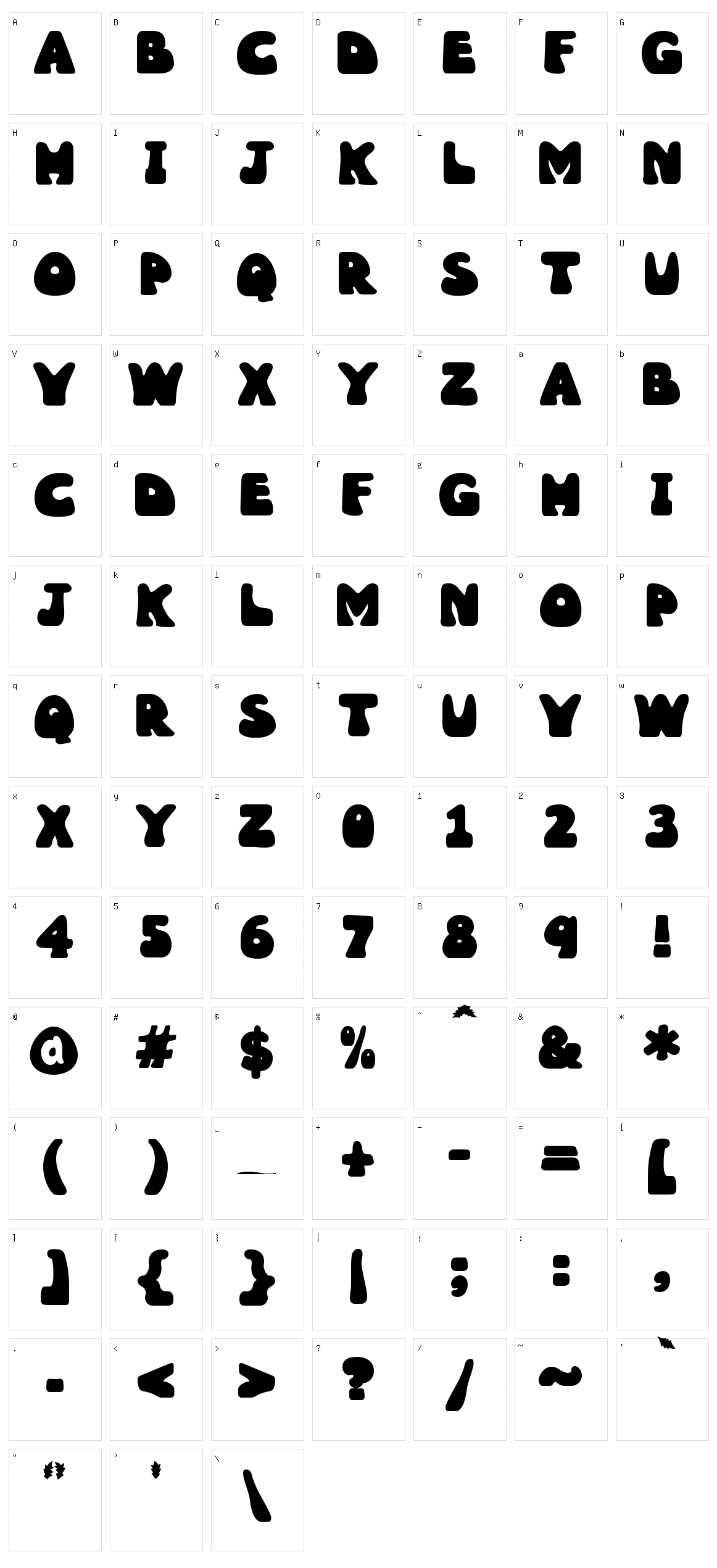
Well, there I was just essing about when up comes me mate Jools and sez, "Hey, I'm in a bit of a Euro. I need someone ter give us a section."
"No way!" sez I. "Last time you OEed me. I still got the bruises."
"Hey, don't get yourself in such an ampersand, you stupid pee."
"Who're you enning yer big fat why?"
Well I couldn't take that aitching down and soon we wuz at ems'n'eths. Then we both thort, hey, we've bin ays fer years always bracelefted each other around.
So in the end we ecksed and made up and mued out for an oh slash. Soon we wuz veeing about the 'ole thing.